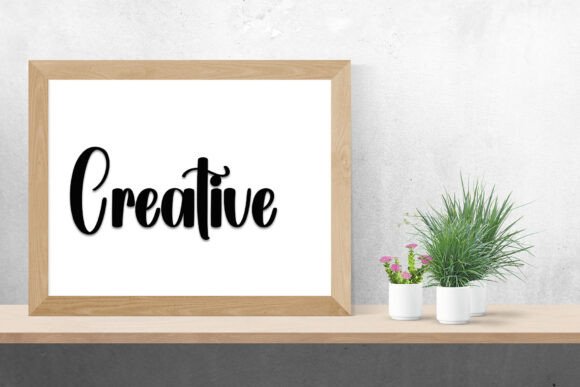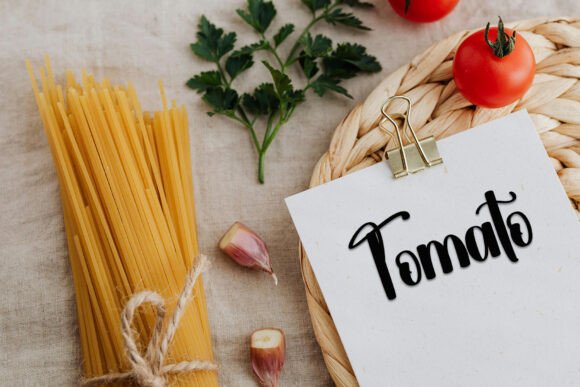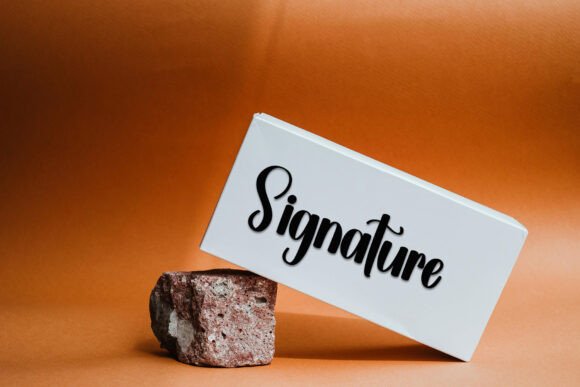
Introduction to Planner Stickers Font
Do you ever find yourself browsing through design blogs or Pinterest, and suddenly you stumble upon a stunning visual project that sparks your creativity? For many designers, this is a familiar experience. We’ve all been there – scrolling through our feeds, and suddenly, a beautiful design catches our eye, leaving us wondering how to recreate it. This time, it’s the Planner Stickers Font that has captured our hearts, and we’re excited to dive into its world.
As a valuable design resource, the Planner Stickers Font is a game-changer for any creative project. Its elegant touch and high-quality aesthetic make it perfect for a wide range of applications, from digital designs to print materials. With a transparent background, you can easily layer it over your favorite images or use it as a standalone element in your designs.
Whether you’re a seasoned designer or just starting out, the Planner Stickers Font is an excellent addition to your design toolkit. And the best part? It’s available for a free download, making it an accessible and affordable resource for all creatives. In this article, we’ll take a closer look at this beautiful font and explore its endless possibilities.
Key Features of Planner Stickers Font
- High-quality, unique font design ideal for creative projects, such as planners, journals, and scrapbooking.
- Font size is optimized for use in planner stickers, with a recommended size range of 1-3 inches (2.5-7.5 cm) for best results.
- Unique, hand-drawn design elements make this font perfect for adding a personal touch to creative projects.
Honest Review: Planner Stickers Font
As a designer, I’m always on the lookout for high-quality design resources that can elevate my creative projects. Recently, I stumbled upon the Planner Stickers Font, and I’m excited to share my honest review with you.
What works well: ✨ The Planner Stickers Font offers a wide range of customizable stickers with transparent backgrounds, making it easy to overlay them on any design. The font is also super easy to use, even for beginners. Plus, the font is a free download, which is a huge plus in my book.
- Wide range of customizable stickers
- Transparent backgrounds for easy overlay
- Easy to use, even for beginners
However, there are a few limitations: ⚠️ The font is only available in a few styles, which might limit its versatility for more complex designs. Additionally, the stickers can be a bit pixelated when scaled up, which is a minor issue but worth noting.
Overall, I’m really impressed with the Planner Stickers Font. It’s a fantastic design resource that’s perfect for planners, journals, and other creative projects. If you’re looking for a high-quality, free font that’s easy to use, I highly recommend giving it a try.
Use Planner Stickers Font to add a touch of whimsy to your designs. It’s perfect for planners, journals, and other creative projects. You can also use it to create custom labels, stickers, or other design elements. To get the most out of this font, experiment with different colors and styles to match your design aesthetic.